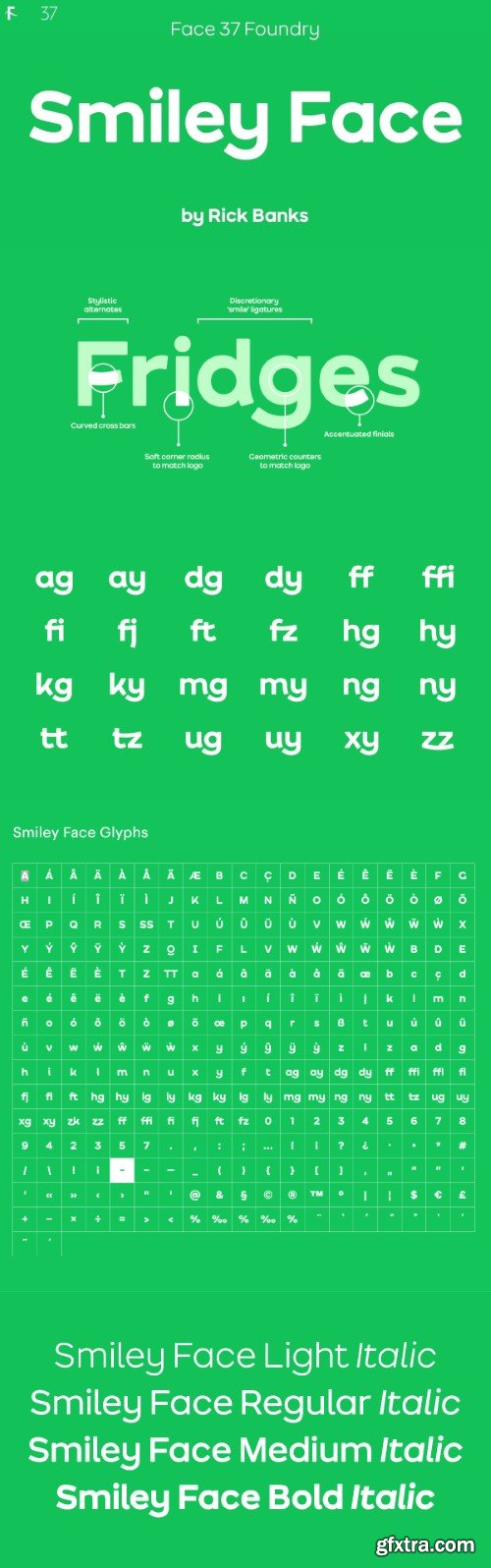
笑脸字体家族
Working alongside DesignStudio, we created a family of fonts called Smiley Face that managed to strike a fine balance by being characterful without slipping into childishness. Taking its cue from the AO logo, it features curved crossbars, slightly smiley descenders and a series of subtle, quirky touches. Smiley Face comes in nine different weights, including a playful headline version. This is packed with coded OpenType ‘smiley’ discretionary ligatures to enhance the warm, fun feel of the brand. It’s been carefully considered and designed to fit with the rest of the visual language of the brand.